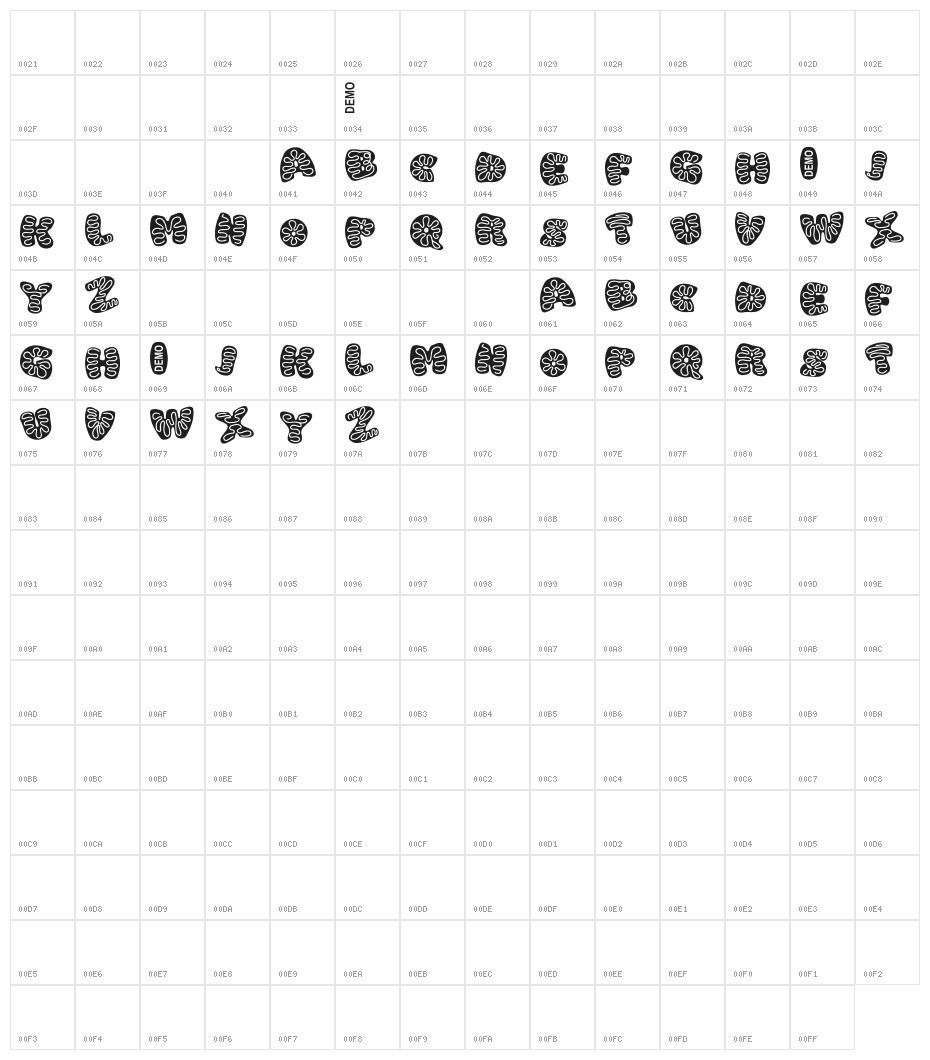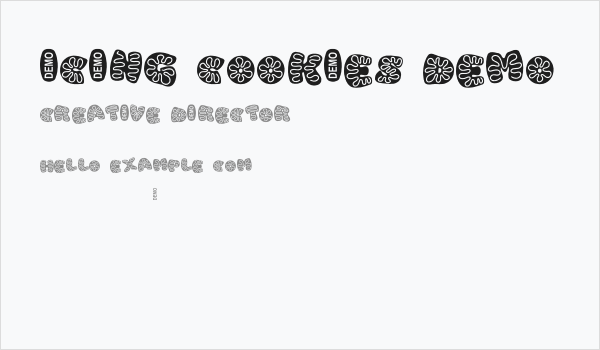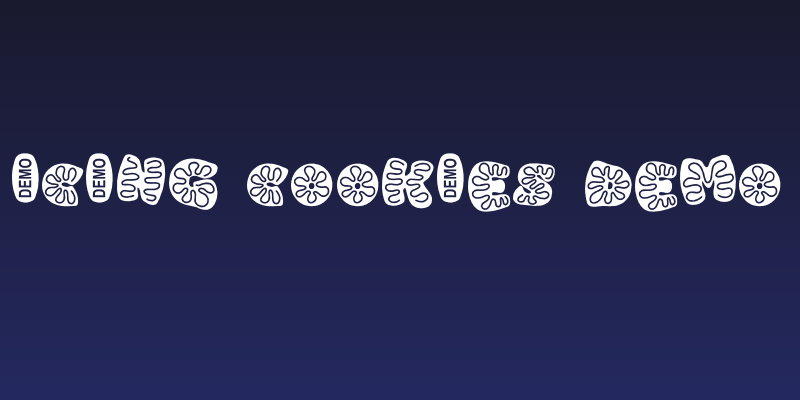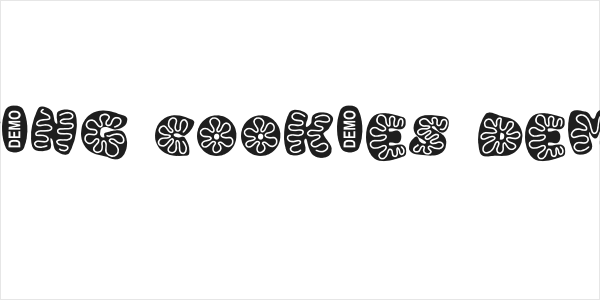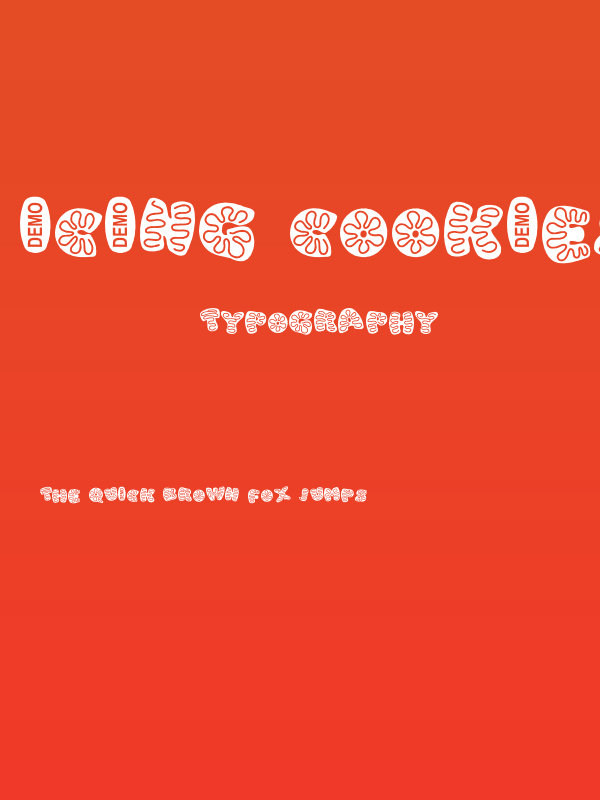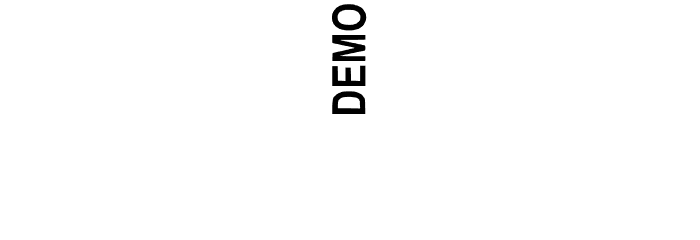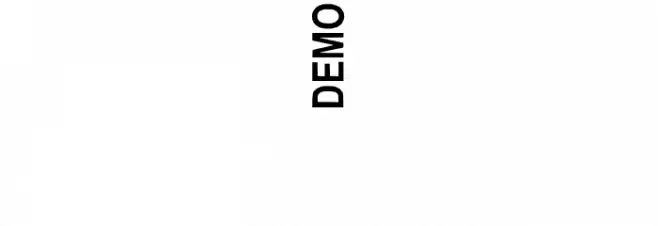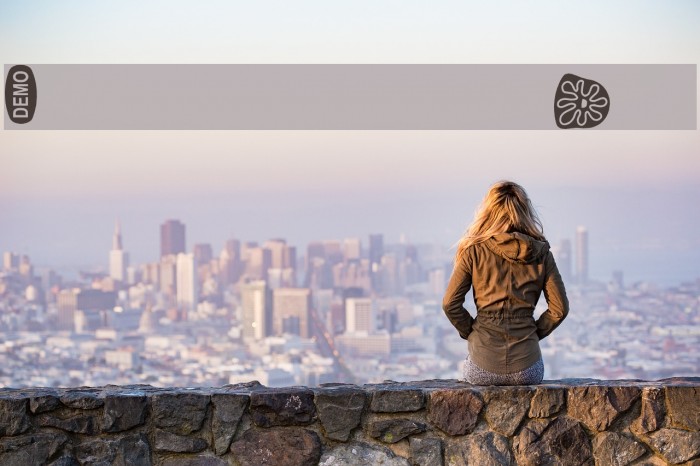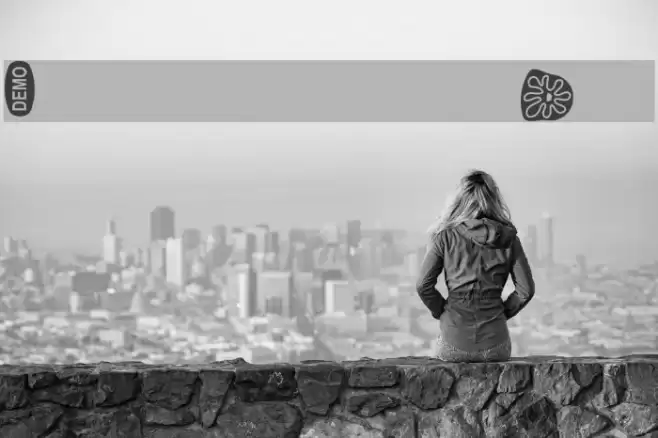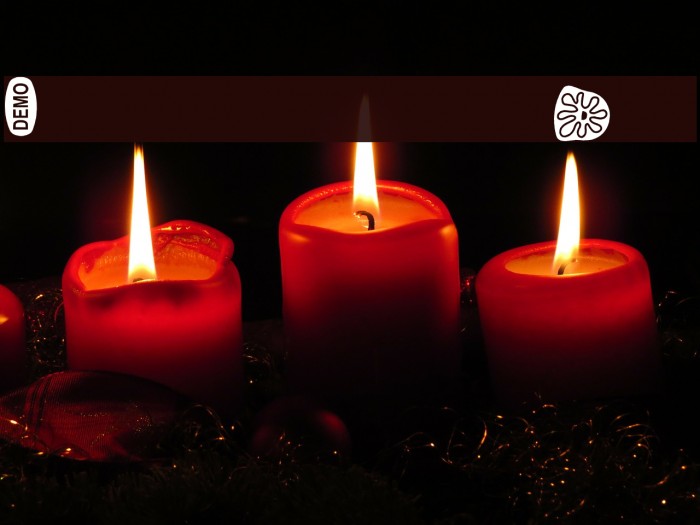
Icing cookies Demo Font
This playful and decorative font features a whimsical design reminiscent of icing on cookies. Each character is outlined with a bold black line, filled with intricate white patterns that mimic the look of frosting. The letters have a rounded, soft appearance, adding to the playful and fun aesthetic. The font is highly decorative, making it suitable for creative and informal projects. Its unique style captures attention and adds a touch of whimsy to any design.